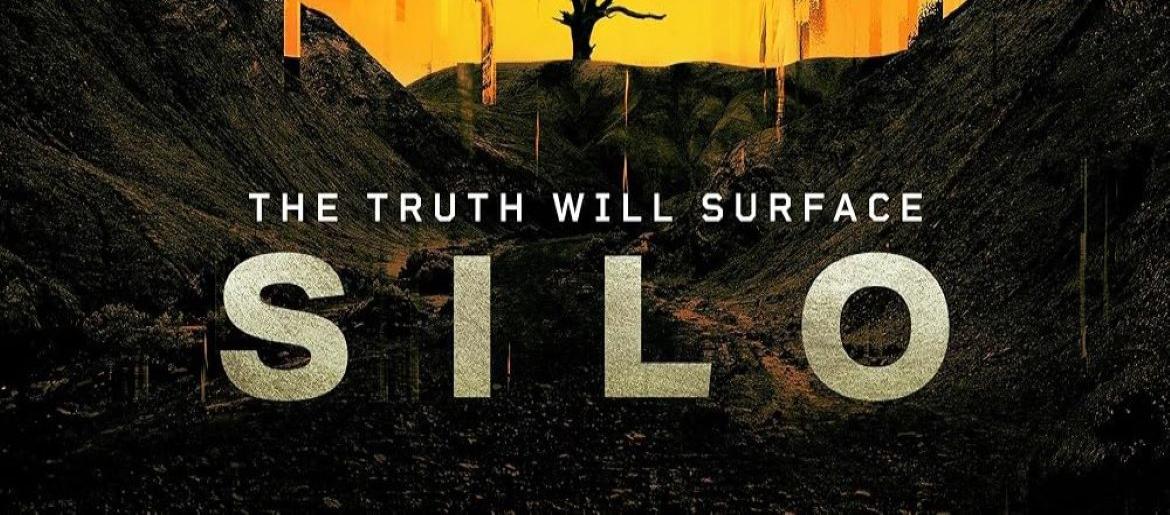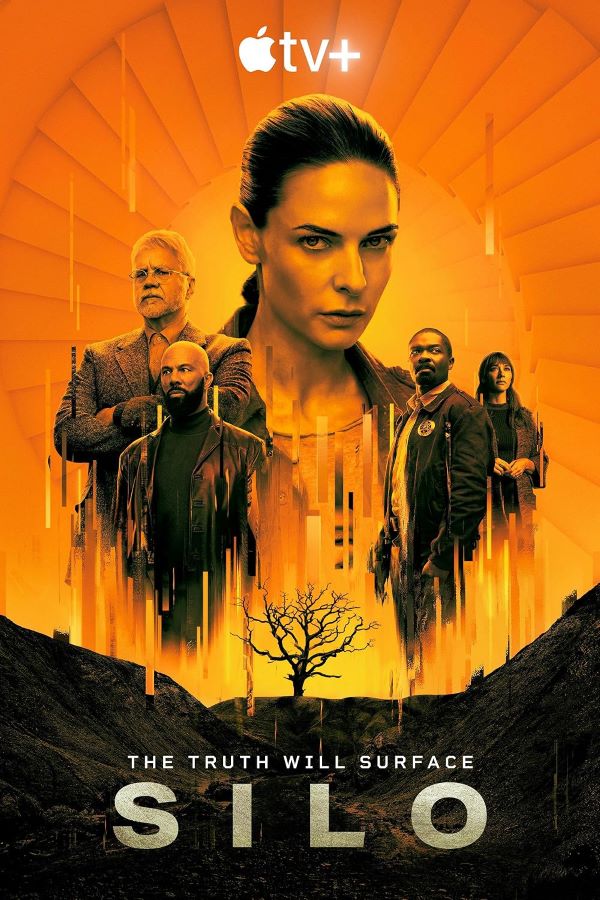
Silo Font
What Font is Silo?
The SILO Font used in the Apple TV+ sci-fi series logo closely resembles Neue Plak Wide Black, a bold and modern sans-serif typeface known for its strong geometric shapes and commanding presence. Although the exact font hasn’t been officially identified, Neue Plak Wide Black captures the same futuristic and industrial tone that defines the show’s atmosphere — a world built on mystery, technology, and survival.
About SILO
SILO is a science fiction drama series that premiered on Apple TV+ in 2023. Starring Rebecca Ferguson, the show takes place in a post-apocalyptic world where the last remnants of humanity live underground in a massive silo. As the residents question the rules and secrets governing their confined existence, dark truths about their world begin to surface. With its gripping storytelling, atmospheric design, and philosophical undertones, SILO has earned praise as one of the most compelling dystopian series in recent years.